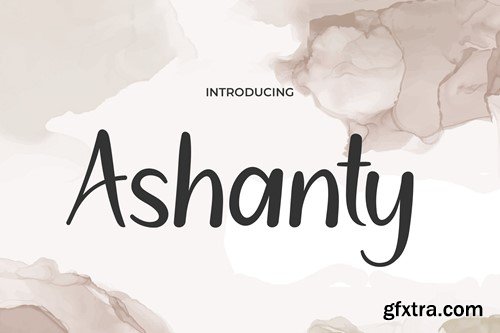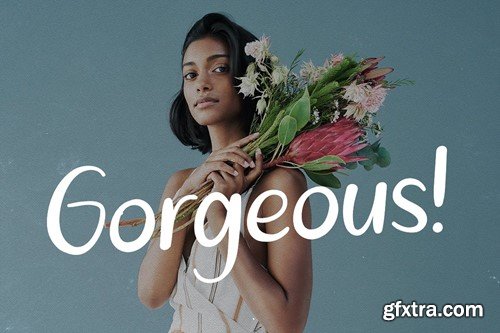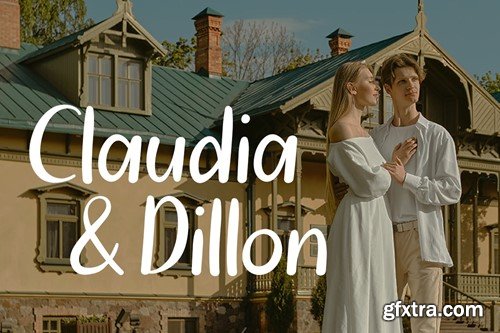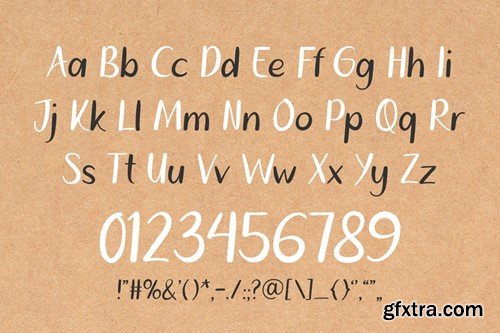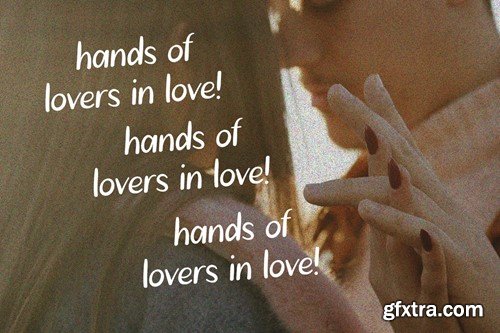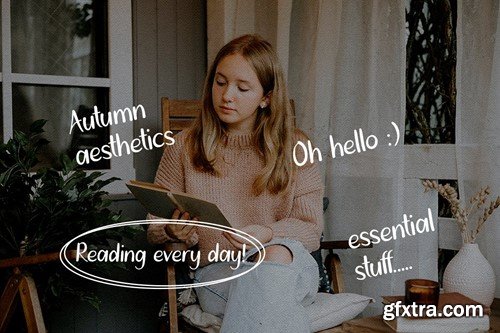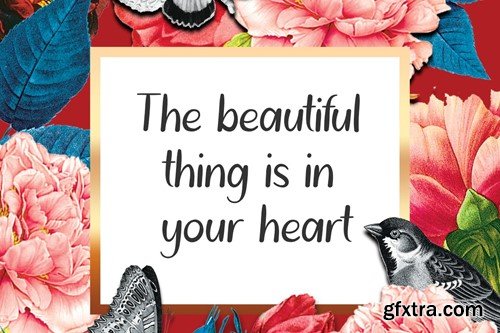
阿什antine - 手写优雅遇见美丽字体 UUFLWAW
Ashanty is a handwritten font that effortlessly combines the allure of beauty with the grace of elegance. Its fluid, natural script style captures the personal touch of handcrafted artistry, making it a perfect fit for projects that call for a blend of sophistication and warmth. Ashanty adds a bespoke, artisanal feel for logos, elevating brand identities with its elegant and stylish design. Its beautiful script is ideal for quotes, adding a personal and refined touch that enhances the meaning and depth of words. In invitations, Ashanty sets a tone of exclusivity and charm, inviting guests to events with a sense of elegance and intimacy. When used in posters and greetings, it conveys messages with heartfelt warmth and sophistication, making every word more engaging and special. In the realm of packaging and branding, Ashanty provides a unique and classy identity, ideal for products and brands that wish to convey a sense of premium quality and personal touch. For book covers, event promotions, headlines, and advertising, Ashanty ensures your message is seen and felt, delivering a blend of modern beauty and classic elegance.